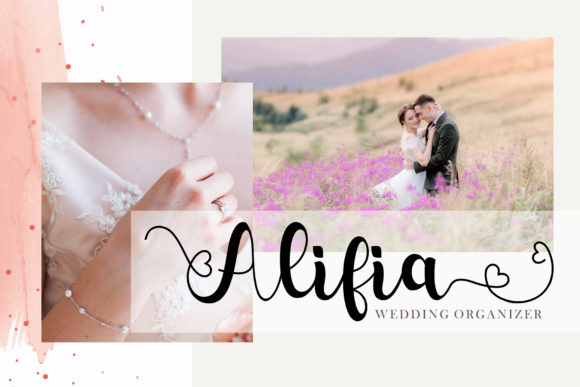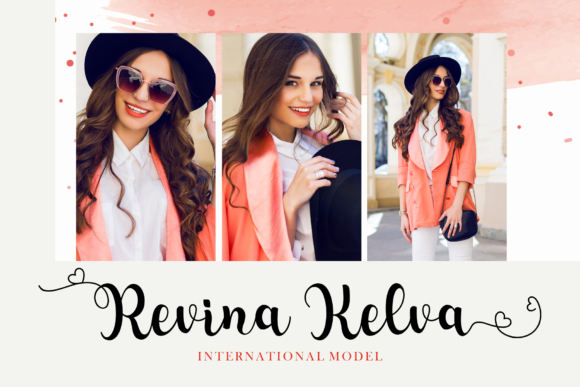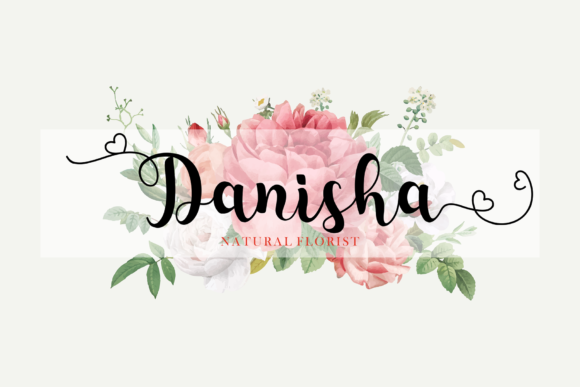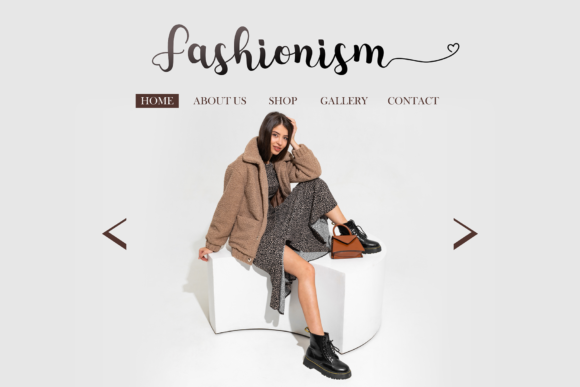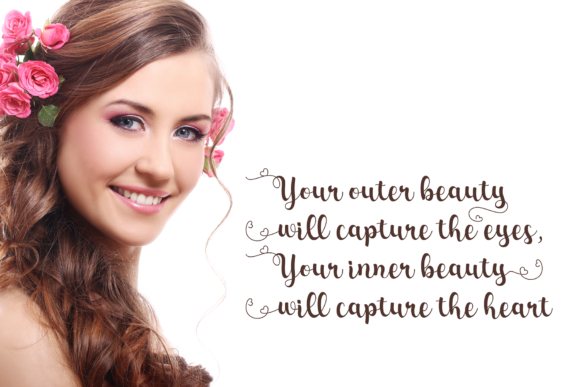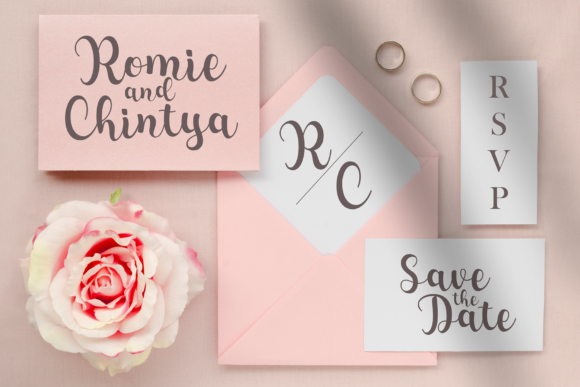
Introduction to Perfect Lova Font
Perfect Lova is a delicate, elegant and flowing handwritten font.
It has beautiful and well balanced characters and as a result, it matches a wide pool of designs Perfect Lova features a varying baseline, smooth lines, gorgeous glyphs and stunning alternates.